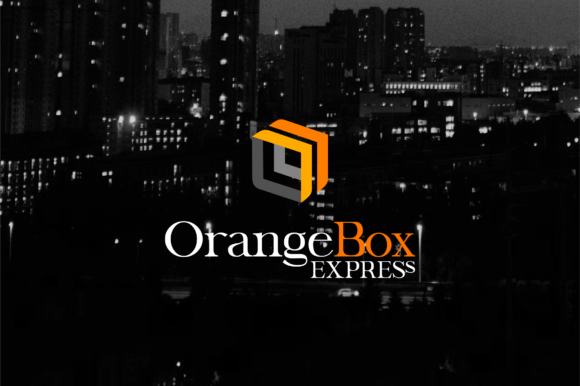
Introducing Hranfsey: The Modern Serif Display Font for Timeless Elegance and Strength
In the world of typography, fonts play a crucial role in conveying messages, expressing creativity, and establishing brand identities. Among the numerous fonts available, Hranfsey stands out as a modern serif display font that exudes timeless elegance and strength. Its distinctive character makes it an ideal choice for a wide range of design projects, from crafting eye-catching posters to designing sophisticated interior spaces. In this article, we’ll explore the features, benefits, and applications of Hranfsey, and how it can elevate your work with its bold yet classic charm.
The Story Behind Hranfsey
Hranfsey is more than just a font; it’s a design solution that combines traditional typography with modern flair. The creators of Hranfsey aimed to develop a font that not only pays homage to classic serif designs but also incorporates contemporary elements to make it versatile and impactful. The result is a font that is both elegant and strong, capable of capturing attention and conveying sophistication.
The name “Hranfsey” reflects the font’s unique character and its ability to stand out in any design. It’s a name that suggests a blend of heritage and innovation, which is precisely what Hranfsey offers. Whether you’re a designer looking for a font that can add a touch of class to your projects or a brand seeking to establish a strong visual identity, Hranfsey is an excellent choice.
Key Features of Hranfsey
Hranfsey boasts several key features that make it an exceptional font for various design applications. Some of its notable characteristics include:
- Timeless Elegance: Hranfsey’s serif design gives it a classic look that never goes out of style. Its elegant lines and proportions make it perfect for projects that require a touch of sophistication.
- Bold and Impactful: Despite its elegant appearance, Hranfsey is a bold font that commands attention. Its strong presence makes it ideal for headlines, titles, and any design element that needs to stand out.
- Versatility: Hranfsey is incredibly versatile, making it suitable for a wide range of design projects. Whether you’re working on posters, logos, packaging, or interior design, Hranfsey can adapt to any style or theme.
- Distinctive Character: The unique character of Hranfsey sets it apart from other serif fonts. Its distinctive features make it memorable and can help establish a strong brand identity.
Applications of Hranfsey
The versatility of Hranfsey makes it suitable for various design projects. Here are some of the ways you can use Hranfsey to enhance your work:
1. Crafting Eye-Catching Posters
Posters are a great way to grab attention and communicate a message quickly. With Hranfsey, you can create posters that are not only visually appealing but also memorable. Its bold yet elegant design ensures that your posters will stand out, whether they’re promoting an event, product, or service.
2. Creating Unique Artisanal Products
For brands that focus on artisanal or handmade products, Hranfsey can add a touch of elegance and sophistication to your packaging and branding. Its classic serif design can evoke a sense of tradition and quality, which is perfect for products that emphasize craftsmanship.
3. Developing a Memorable Logotype
A logo is a crucial element of brand identity, and Hranfsey can help you create a logotype that is both memorable and impactful. Its distinctive character and bold presence make it an excellent choice for logos that need to stand out and convey a sense of elegance and strength.
4. Enhancing Brand Identity
Consistency in branding is key to establishing a strong visual identity. Hranfsey can be used across various branding materials, from business cards to letterheads, to create a cohesive and professional look. Its timeless elegance ensures that your brand will look sophisticated and refined.
5. Designing Sophisticated Interior Spaces
In interior design, typography can play a significant role in setting the tone and atmosphere of a space. Hranfsey can be used in signage, menus, and other design elements to add a touch of elegance and sophistication. Its bold yet classic charm can enhance the overall aesthetic of any interior space.
Why Choose Hranfsey?
With so many fonts available, why should you choose Hranfsey for your design projects? Here are some compelling reasons:
- Unique Design: Hranfsey’s distinctive character sets it apart from other fonts. Its unique design ensures that your projects will stand out and be memorable.
- Versatility: Hranfsey’s versatility makes it suitable for a wide range of design projects. Whether you’re working on a poster, logo, or interior design, Hranfsey can adapt to any style or theme.
- Elegance and Strength: Hranfsey combines timeless elegance with bold strength, making it perfect for projects that require both sophistication and impact.
- Easy to Read: Despite its bold design, Hranfsey is easy to read, making it suitable for both headlines and body text.
Hranfsey is a modern serif display font that offers a unique blend of timeless elegance and strength. Its distinctive character, versatility, and bold yet classic charm make it an ideal choice for a wide range of design projects. Whether you’re crafting eye-catching posters, creating unique artisanal products, developing a memorable logotype, enhancing brand identity, or designing sophisticated interior spaces, Hranfsey delivers unparalleled impact and versatility. By incorporating Hranfsey into your design projects, you can elevate your work and create visually stunning designs that leave a lasting impression.